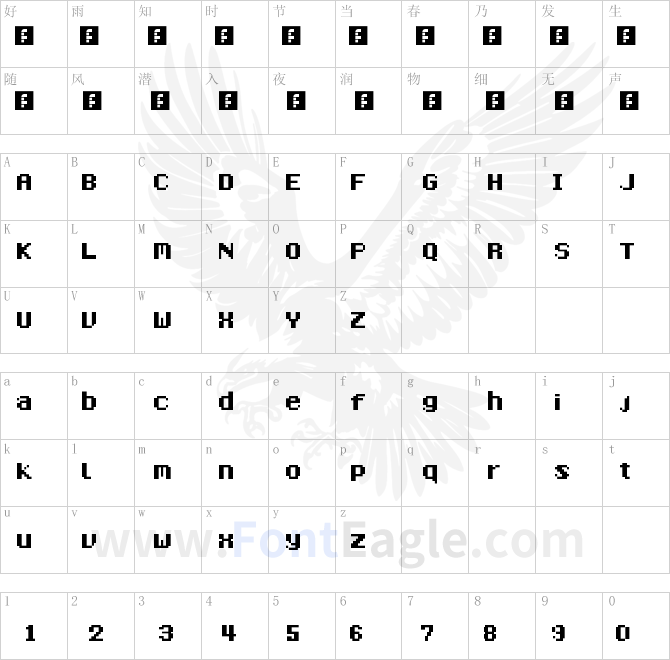
- Font name:Eight-Bit Madness
- Font Subfamily ID:8-Bit Madness
- Font Full Name:8-Bit Madness
- Postscript:8-Bit-Madness
- Font Copyright:Copyright Tyler Dunn 2016